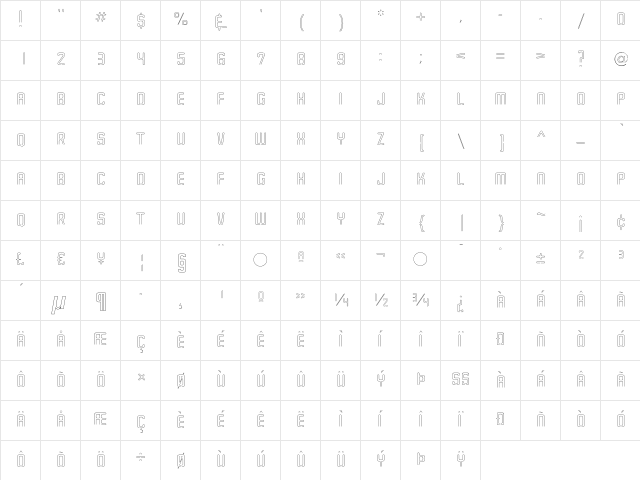
MilwaukeeNeon-Neon Regular Font Preview
MilwaukeeNeon-Neon Regular
Design Context for MilwaukeeNeon-Neon Typeface
MilwaukeeNeon-Neon channels digital-age aesthetics through its sharp, structured letterforms — ideal for brands that want to signal innovation.